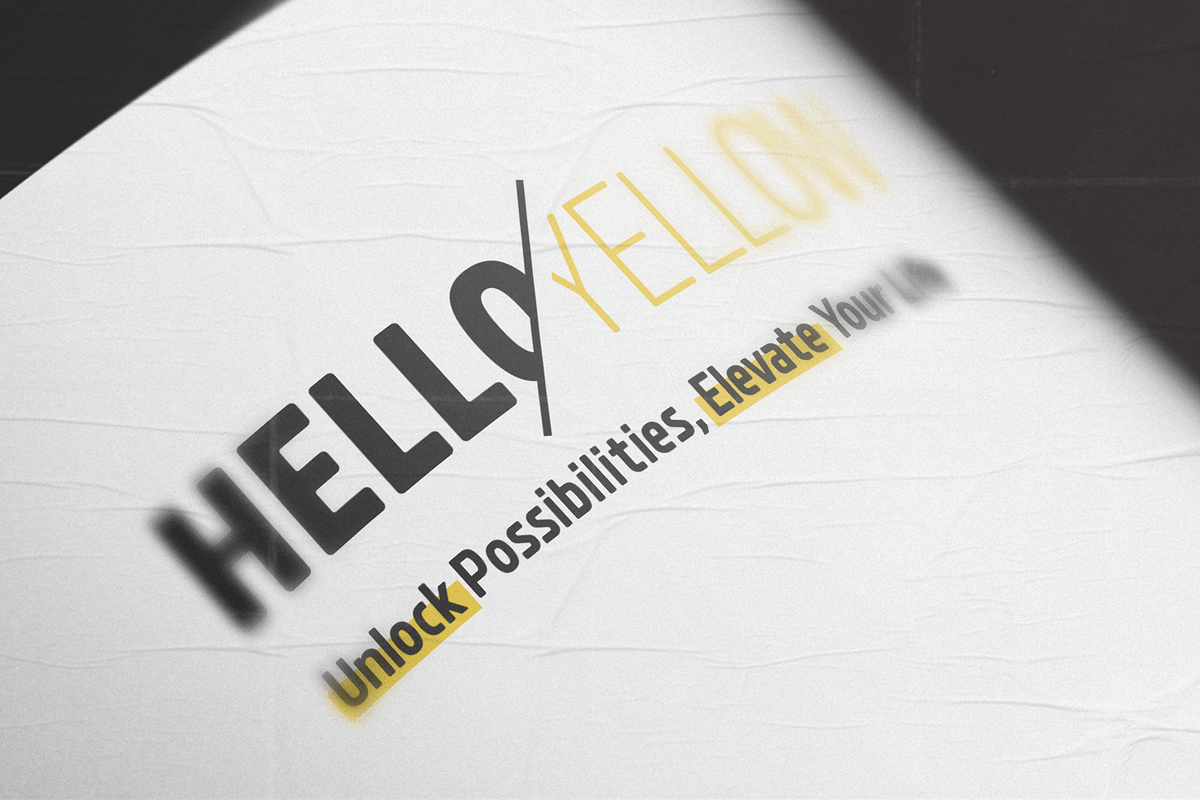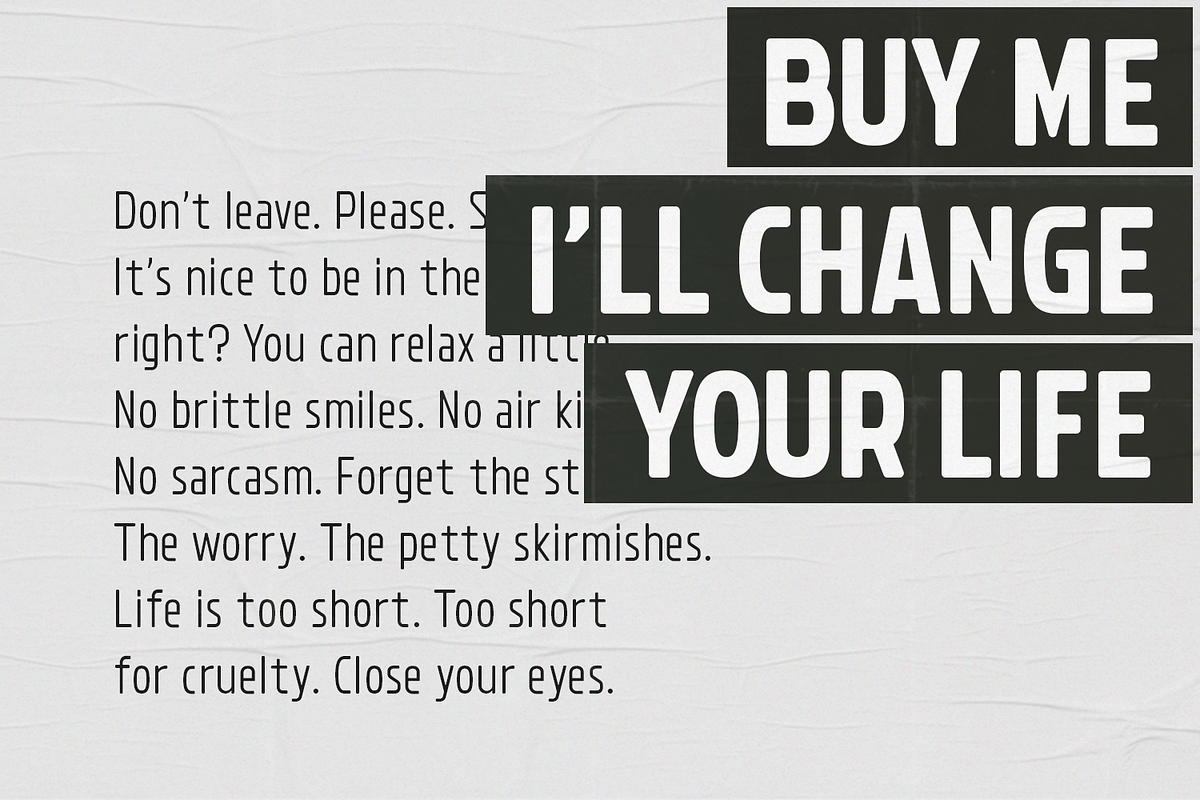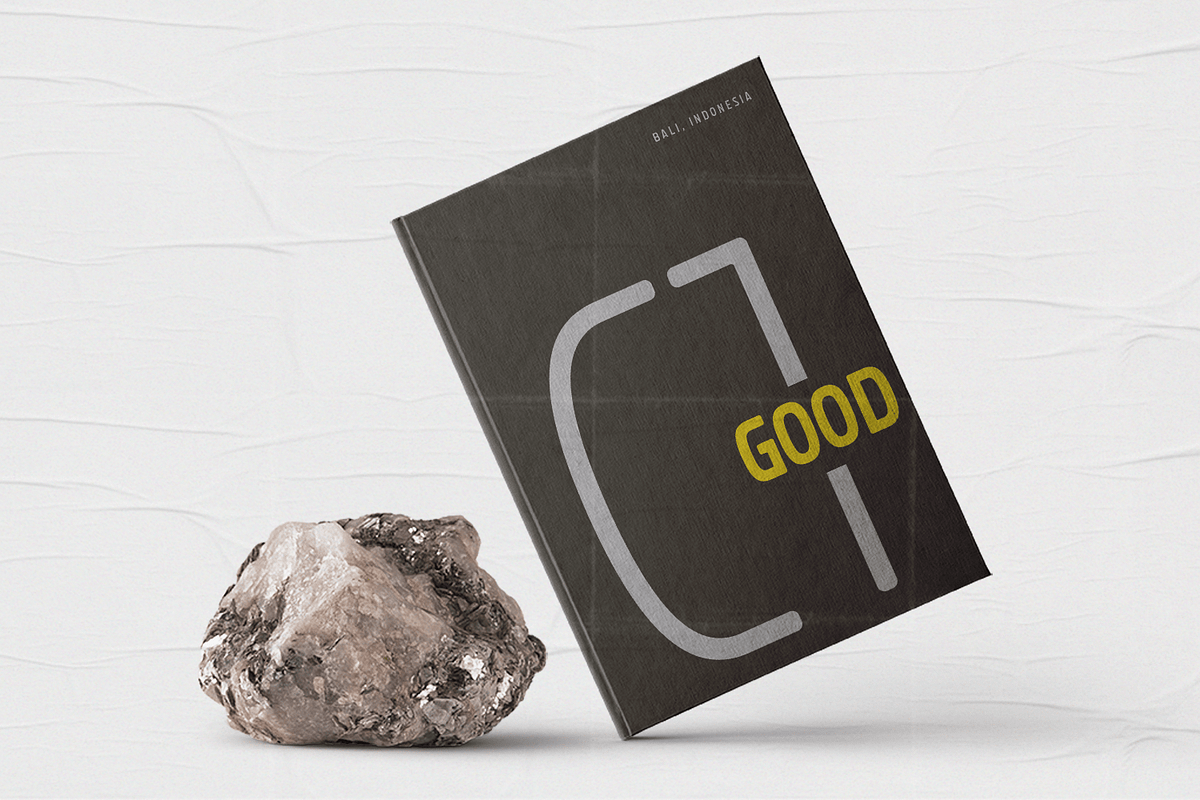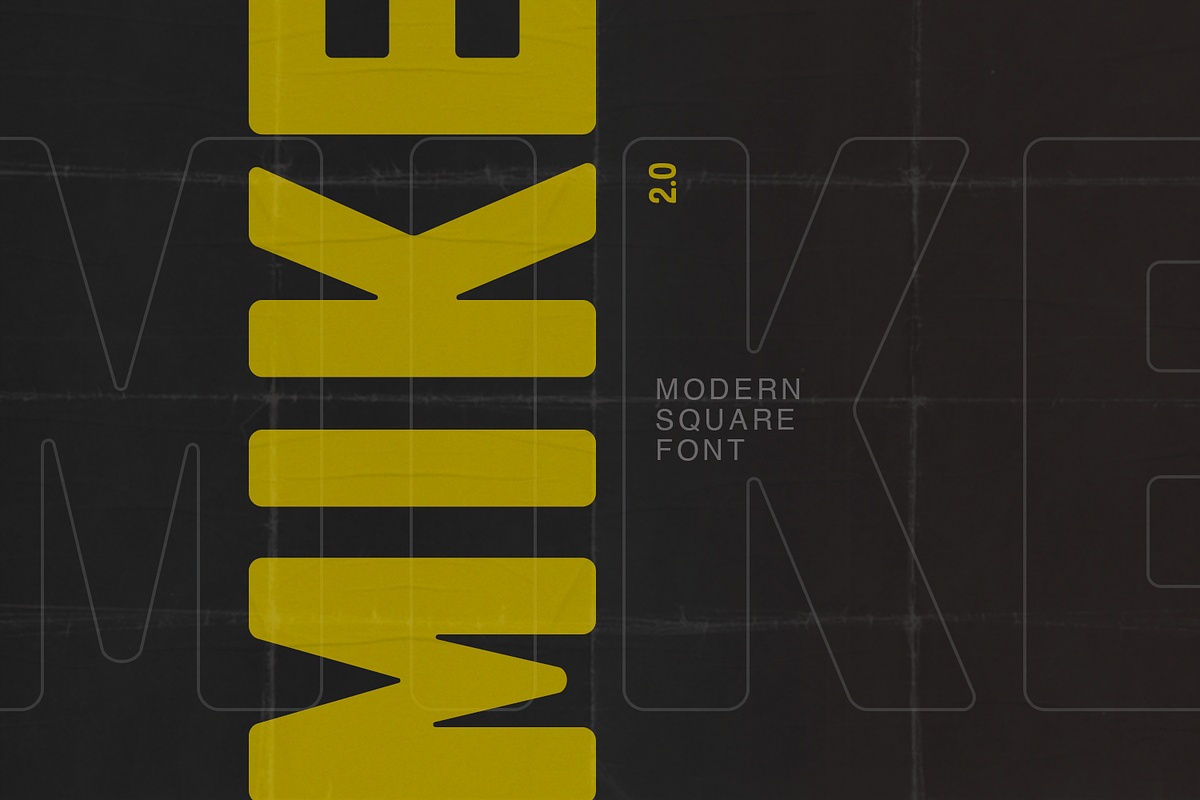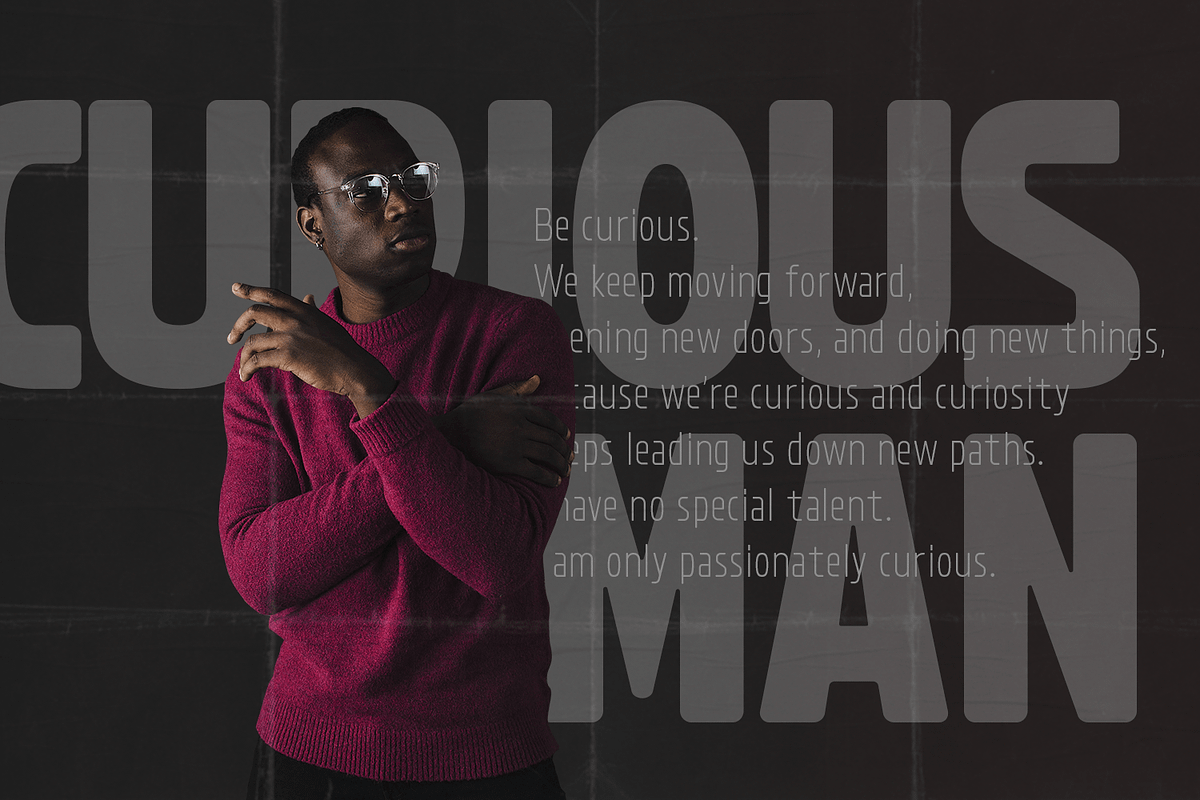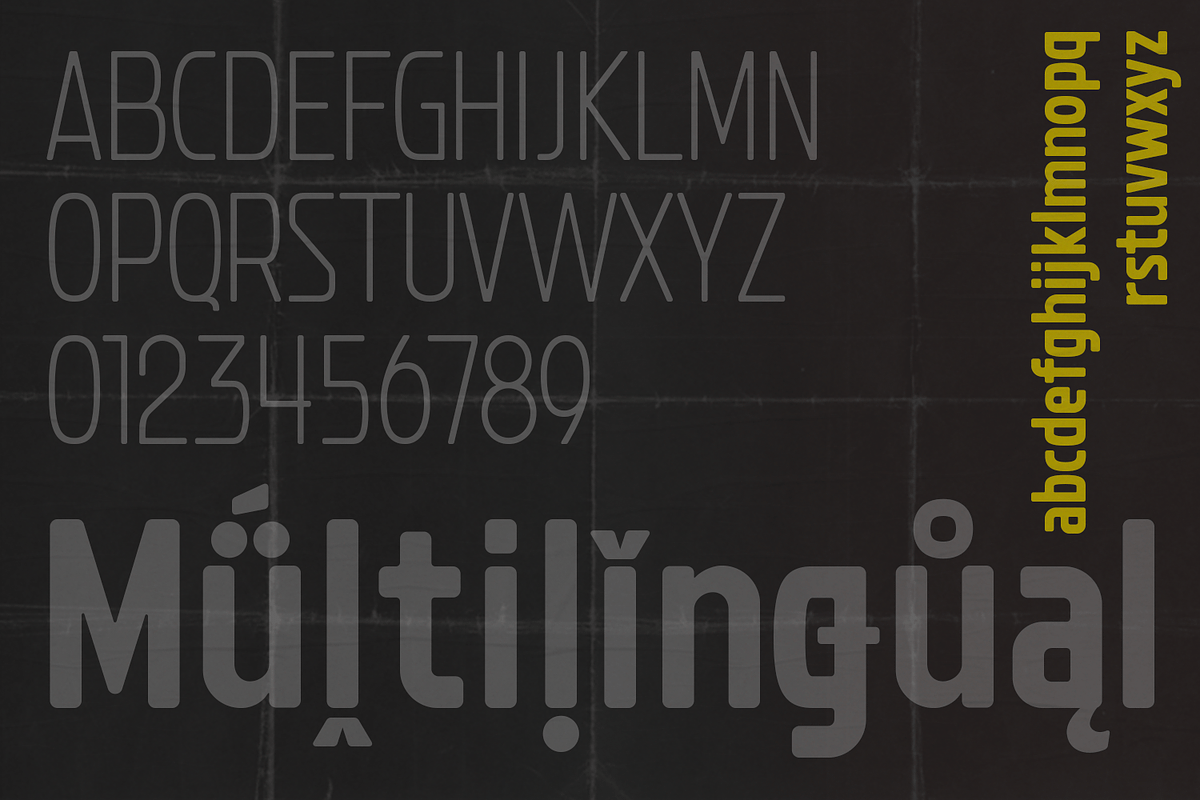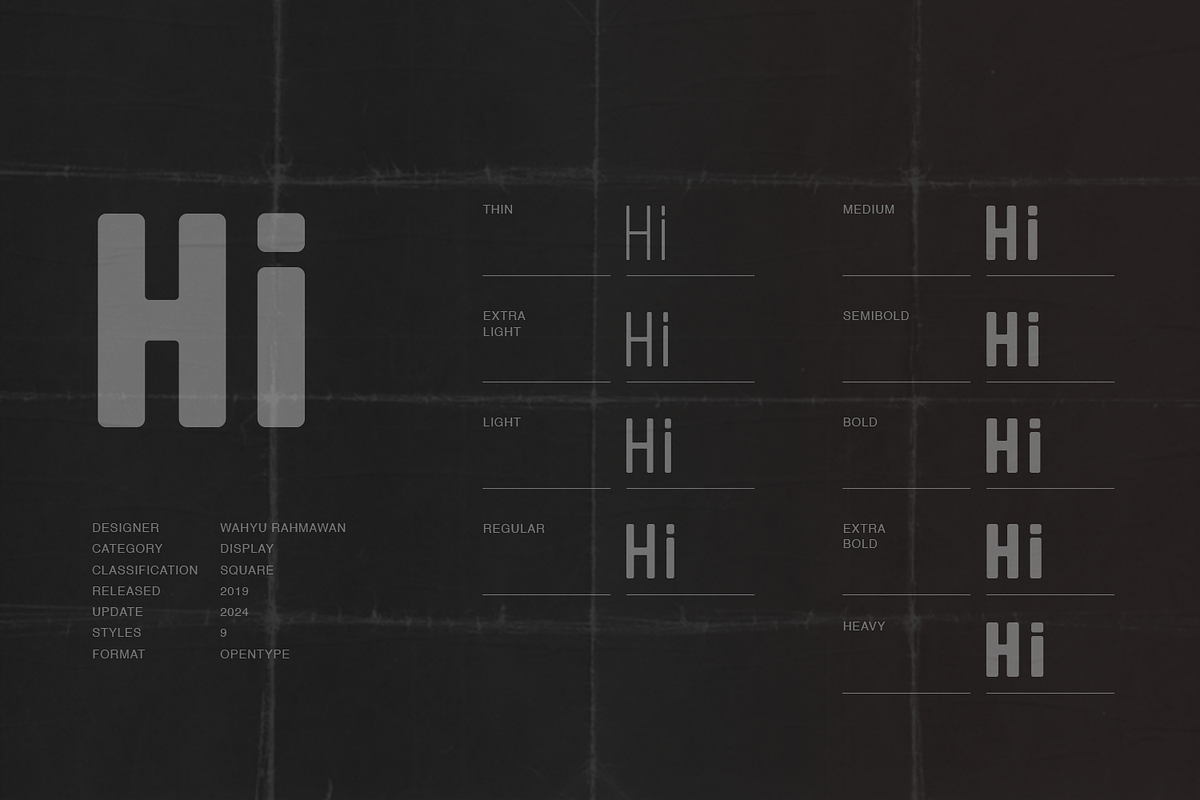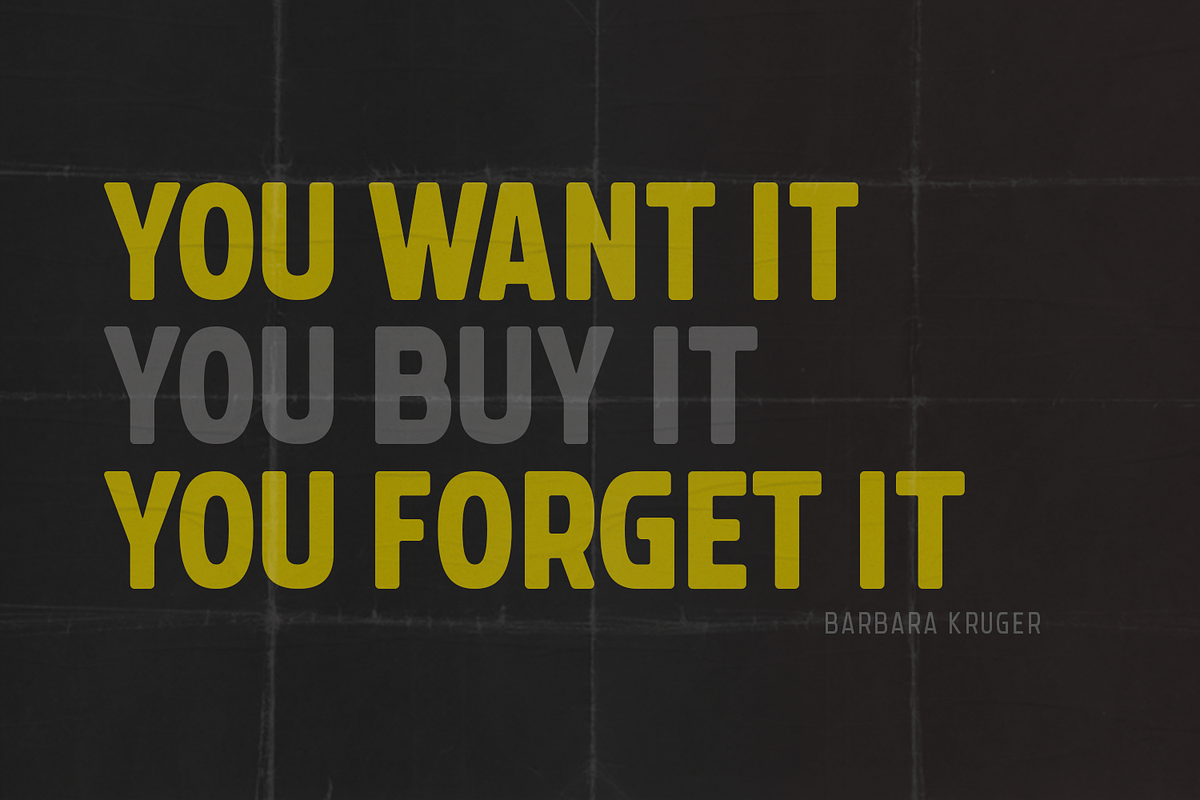
Mike Sans - Modern Square Sans
Mike: A Thoughtful Modern Square Sans for Bold Communication
Meet Mike, a thoughtful modern square sans serif designed to help you communicate with clarity and a strong presence. This typeface balances clean, brutalist geometric lines with a fresh, contemporary energy that fits perfectly in any modern layout.
We crafted this versatile 9-style family to be a reliable and sincere tool for your streetwear branding, high-impact posters, and modern digital interfaces. We engineered every glyph to ensure your message feels structurally solid, confident, and honest.
9 System Styles: A complete range from delicate Thin to commanding Heavy for maximum versatility.
Technical: Modern square construction with clean glyphs, optimized for both display and digital use.
Ideal for: Bold headlines, industrial branding, social media graphics, and tech-driven websites.